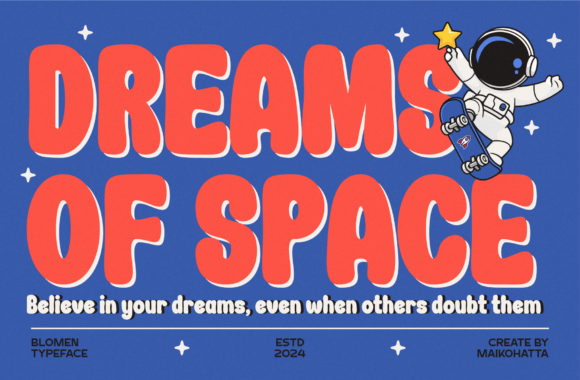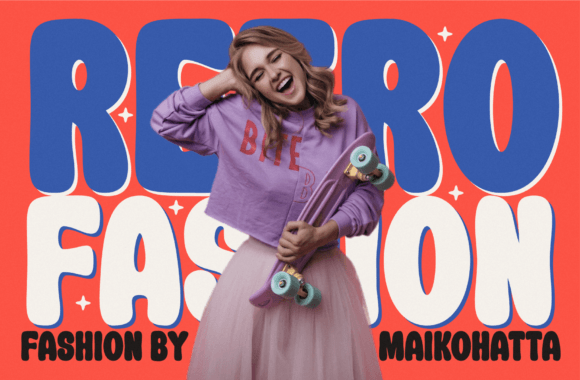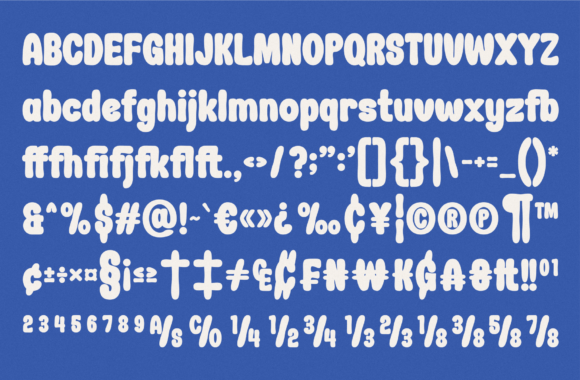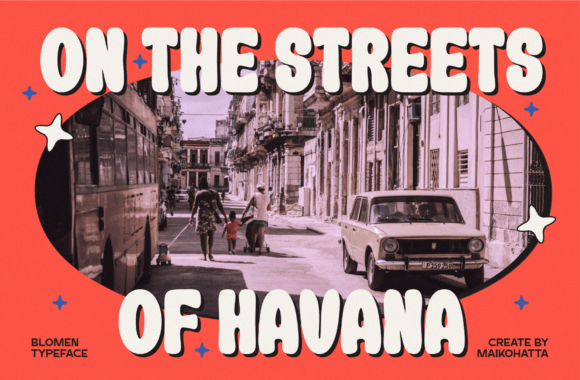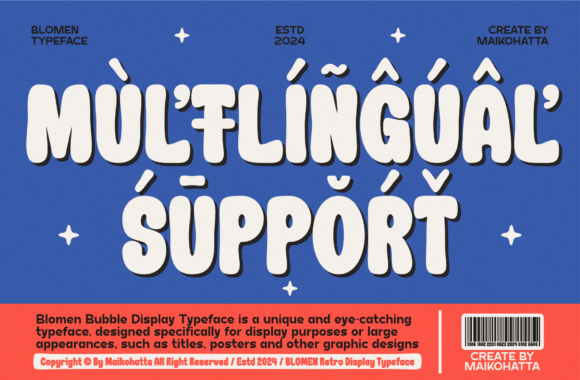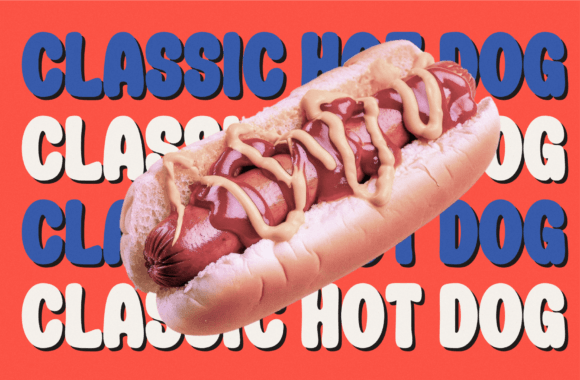
Introducing Blomen: The Ultimate Bubble Retro Display Font
Are you tired of using the same old fonts in your designs? Look no further! We’re excited to introduce Blomen, a brand new font that’s sure to add a playful touch to your creations. Blomen is a bubble retro display font that features round and wide letter shapes with curved corners, giving it a soft and friendly impression.
The Perfect Font for Playful Designs
Blomen’s unique design makes it perfect for designs aimed at children or those with a playful nature. The font’s youthful and cheerful feel is sure to capture the attention of your audience and leave a lasting impression. Whether you’re designing a logo, brochure, or website, Blomen is the perfect choice for adding a touch of whimsy and fun.
Key Features of Blomen Font
- Round and wide letter shapes: Blomen’s letters are designed to be round and wide, giving the font a soft and friendly feel.
- Curved corners: The curved corners of Blomen’s letters add to the font’s playful and youthful feel.
- Bubble retro style: Blomen’s bubble retro style is reminiscent of classic designs from the 80s and 90s, but with a modern twist.
- Easy to read: Despite its playful design, Blomen is easy to read and can be used for both headings and body text.
Why Choose Blomen Font?
So why choose Blomen font for your designs? Here are just a few reasons:
- Unique and eye-catching: Blomen’s unique design is sure to capture the attention of your audience and set your designs apart from the crowd.
- Versatile: Blomen can be used for a wide range of designs, from logos and brochures to websites and social media graphics.
- Fun and playful: Blomen’s playful design makes it perfect for designs aimed at children or those with a youthful and cheerful feel.
How to Use Blomen Font in Your Designs
Using Blomen font in your designs is easy! Here are a few tips to get you started:
- Pair with bold colors: Blomen’s playful design pairs perfectly with bold and bright colors.
- Use for headings and titles: Blomen’s unique design makes it perfect for headings and titles.
- Experiment with different sizes: Blomen’s design looks great in a variety of sizes, from small and delicate to large and bold.
Blomen font is the perfect addition to any designer’s toolkit. Its unique and playful design makes it perfect for designs aimed at children or those with a youthful and cheerful feel. With its round and wide letter shapes, curved corners, and bubble retro style, Blomen is sure to capture the attention of your audience and leave a lasting impression. So why wait? Download Blomen font today and start creating fun and playful designs that will delight your audience!